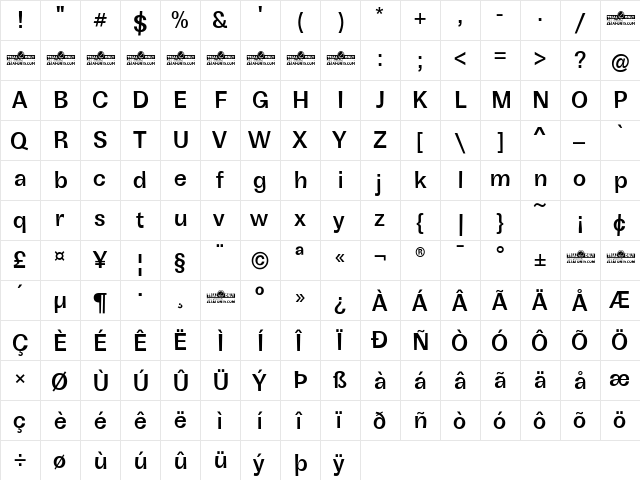
Boring Sans B Trial Medium
| Foundry | Zetafonts |
| Designer | Cosimo Lorenzo Pancini |
Design Context for Boring Sans B Trial Typeface
Boring Sans B Trial takes a measured approach to typography — its balanced proportions and neutral character make it a reliable workhorse for both digital and print work.